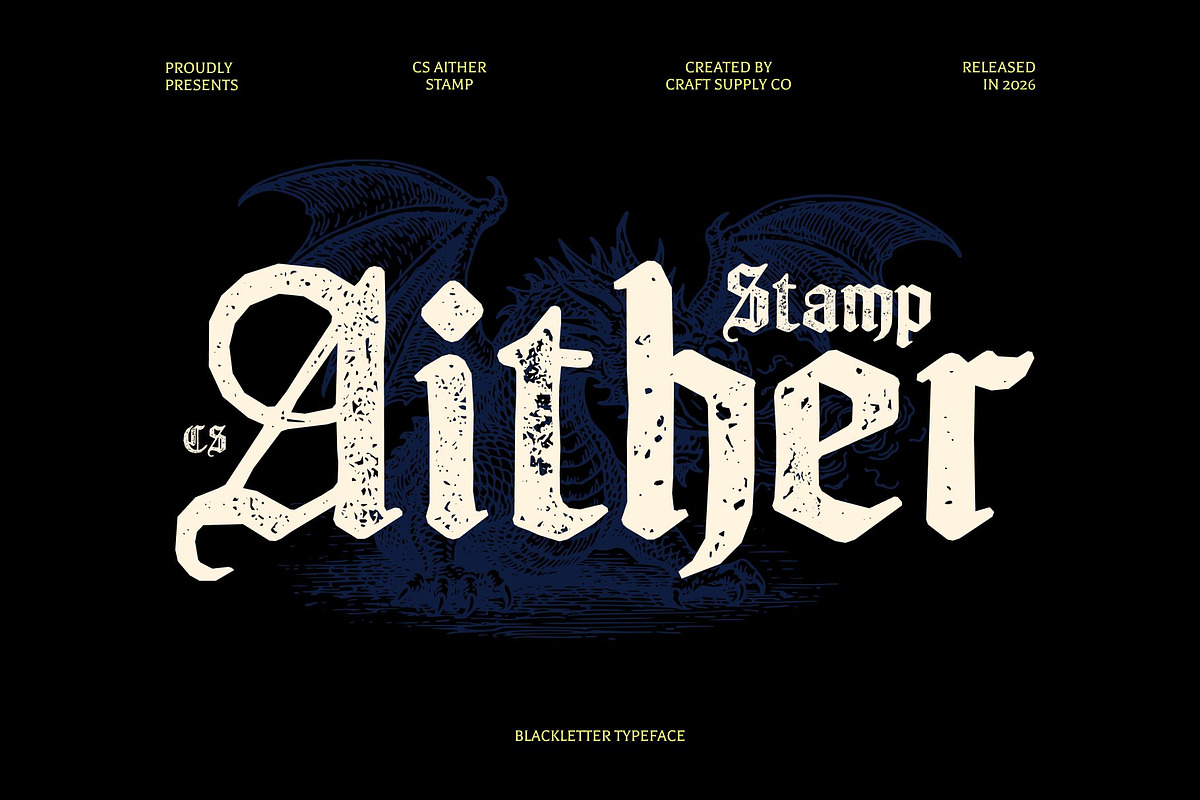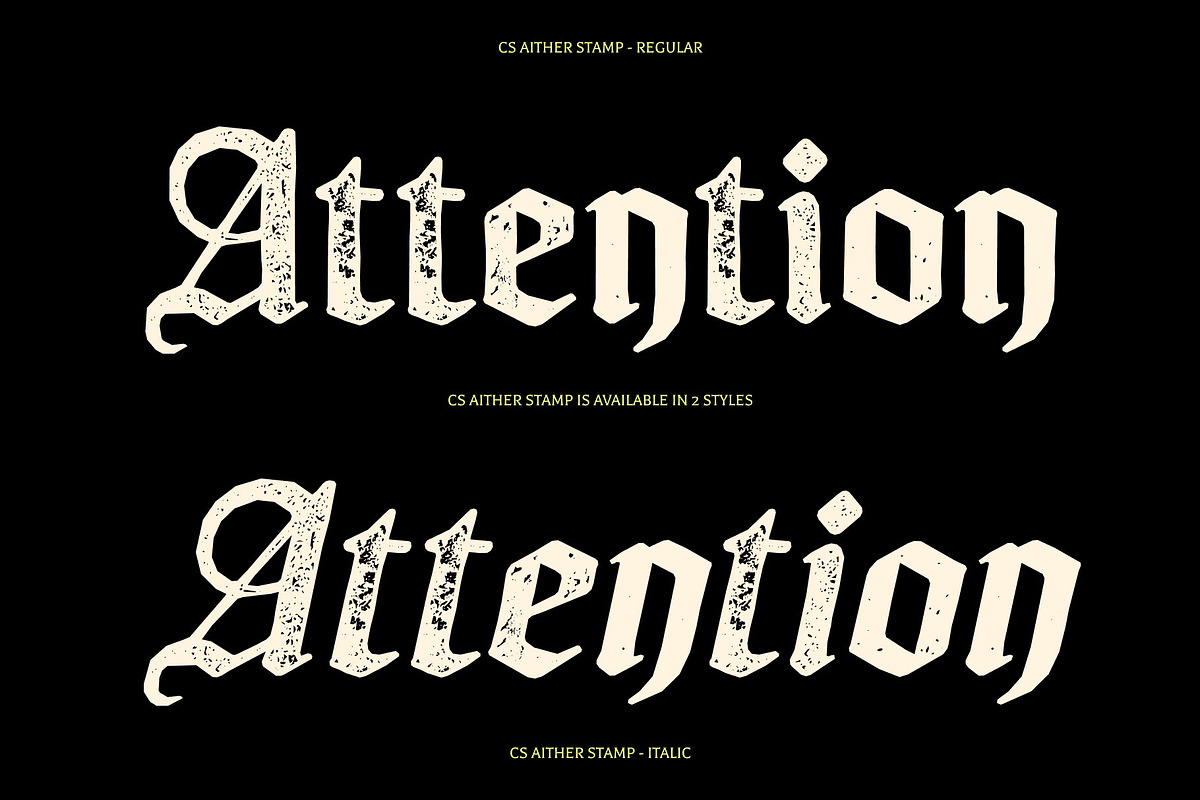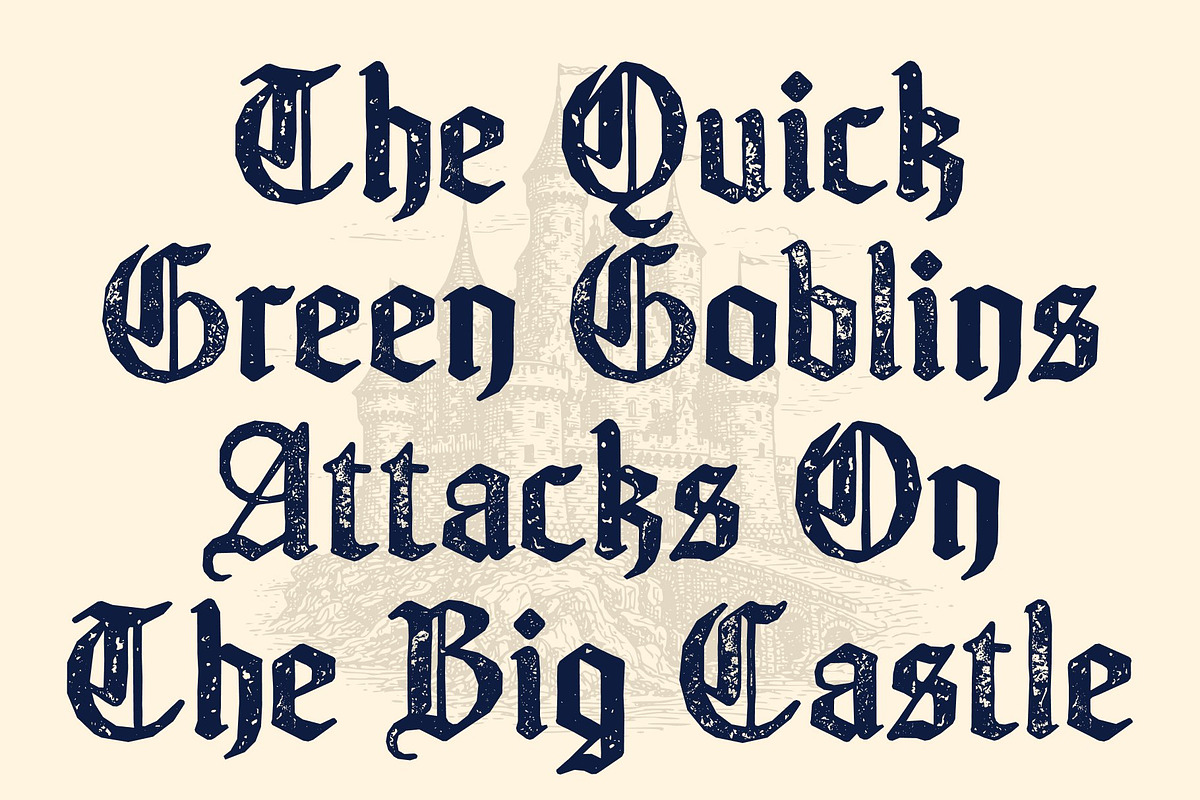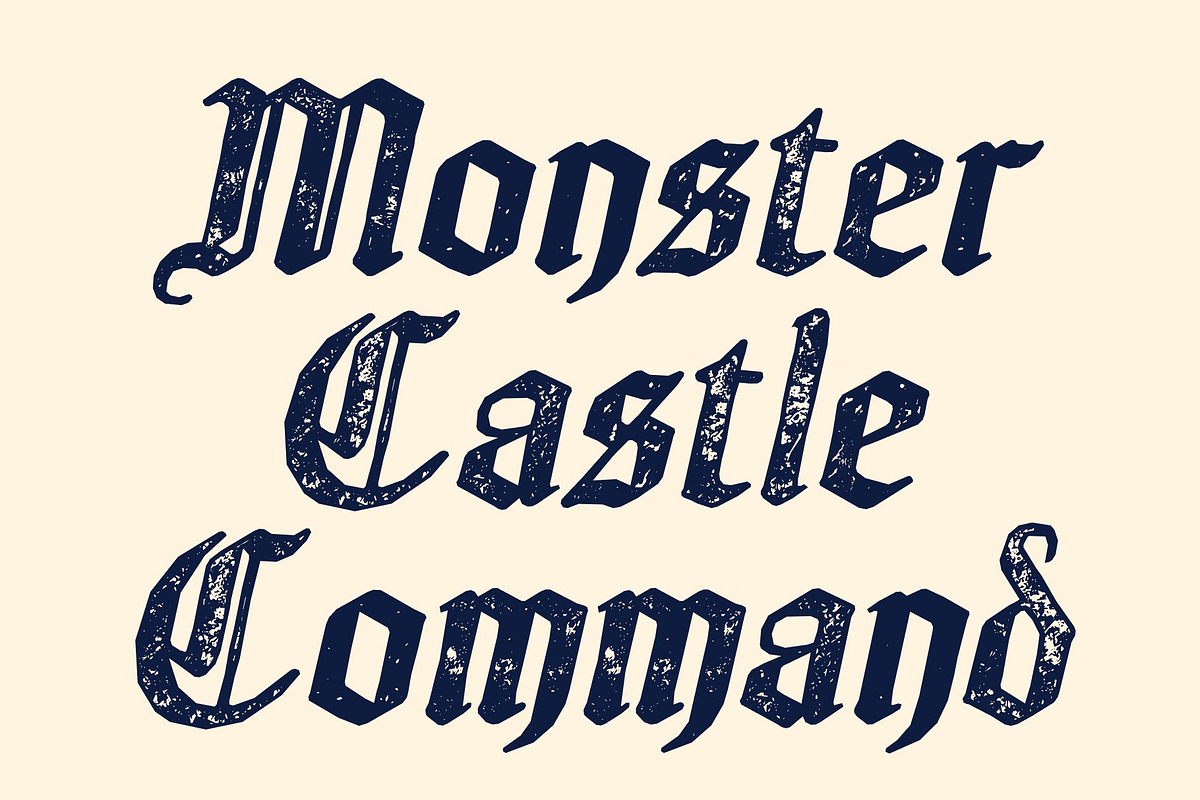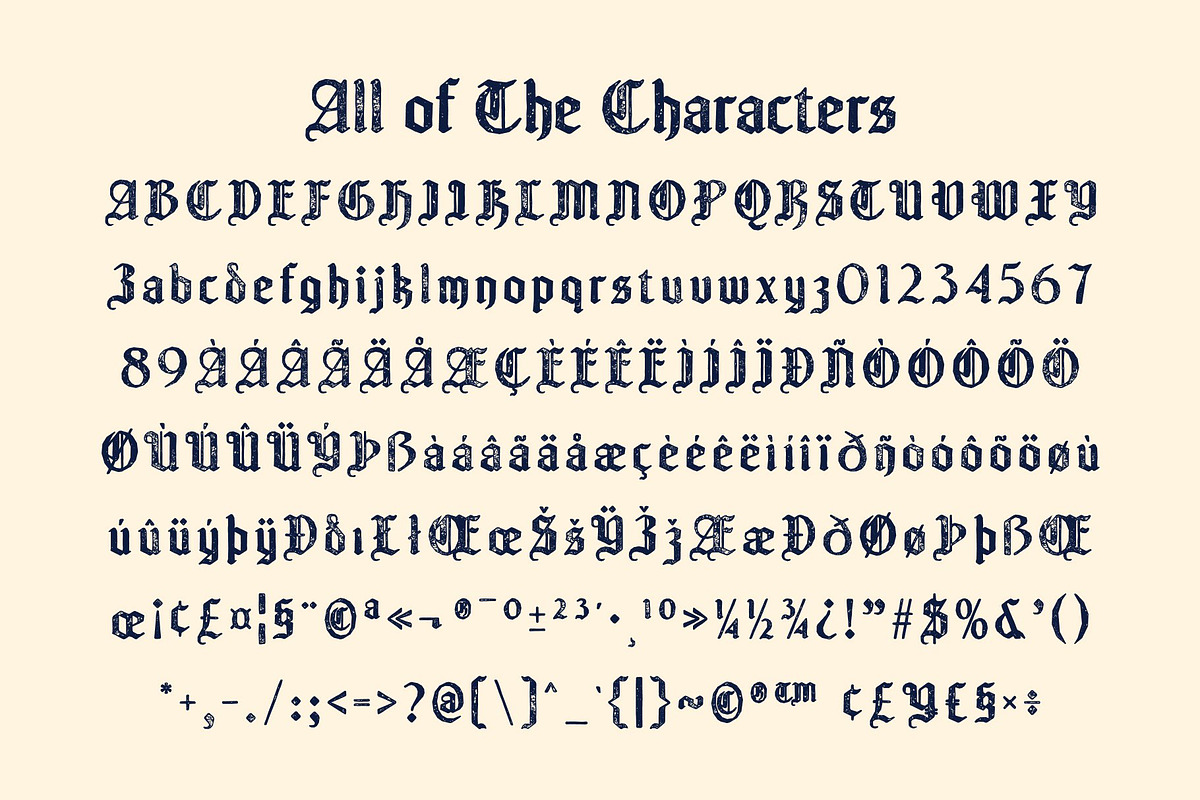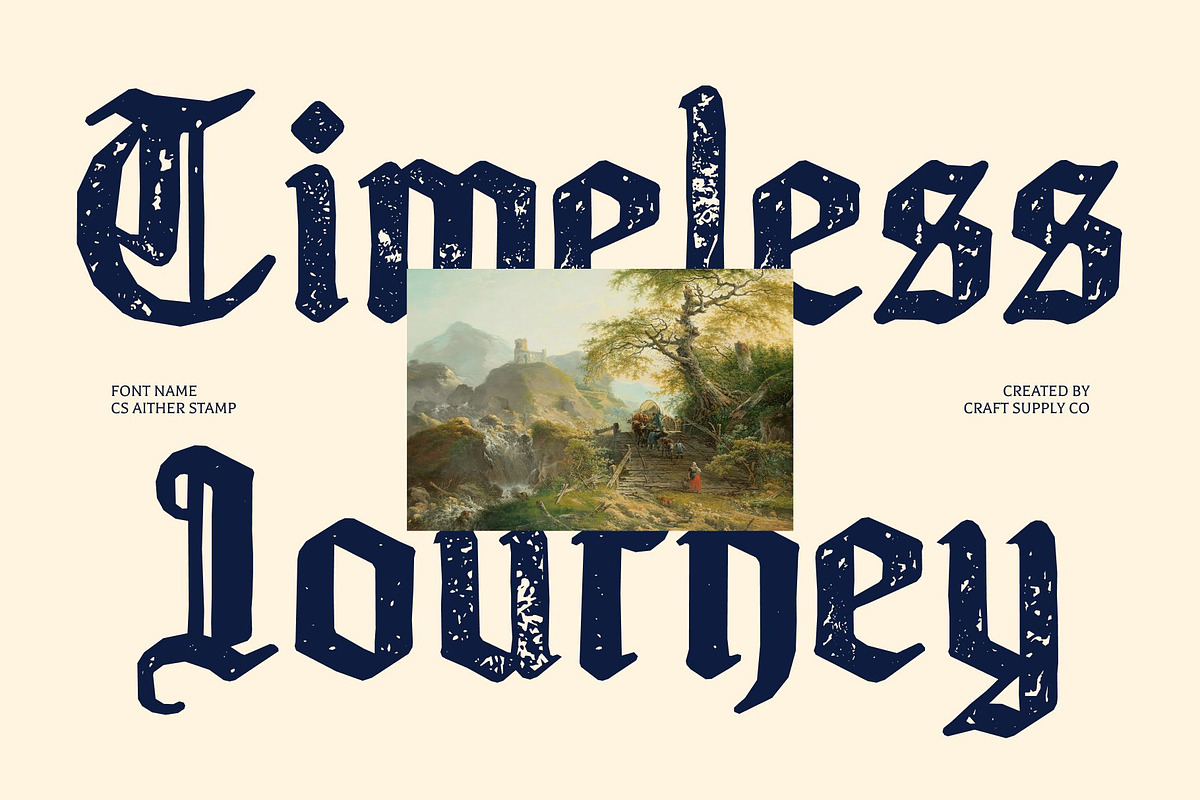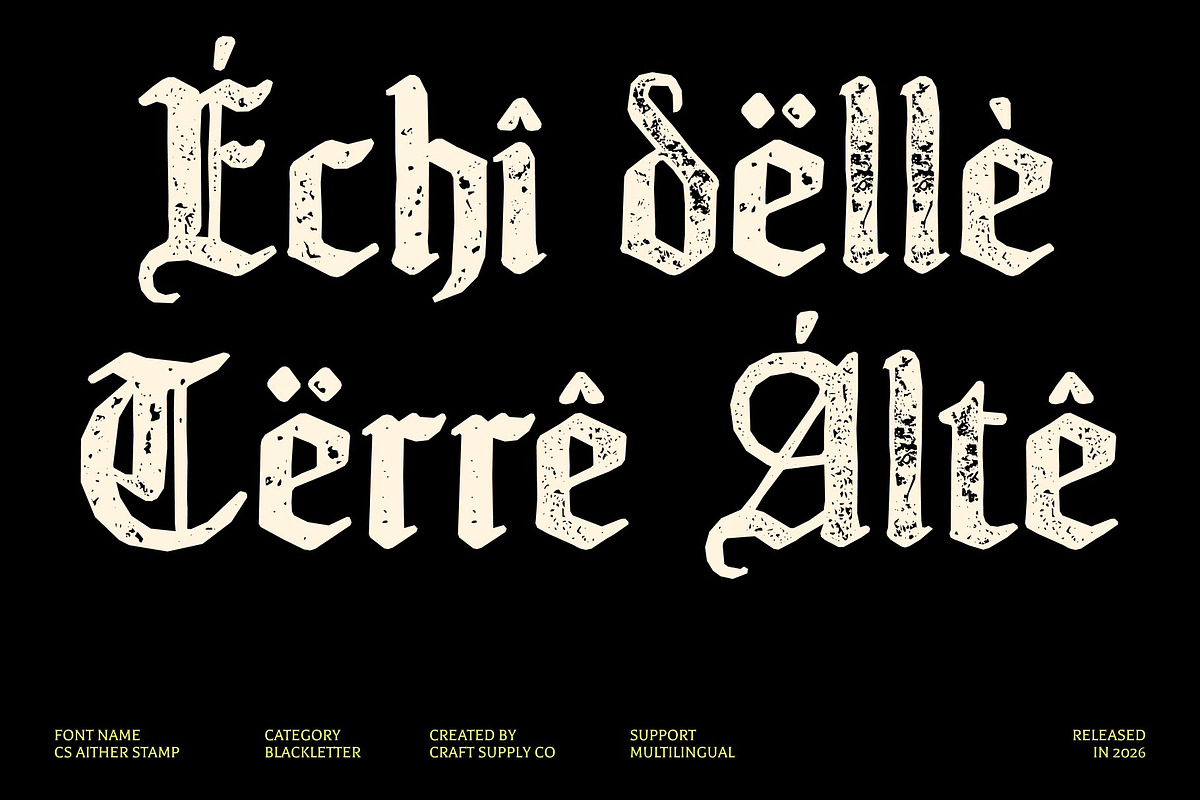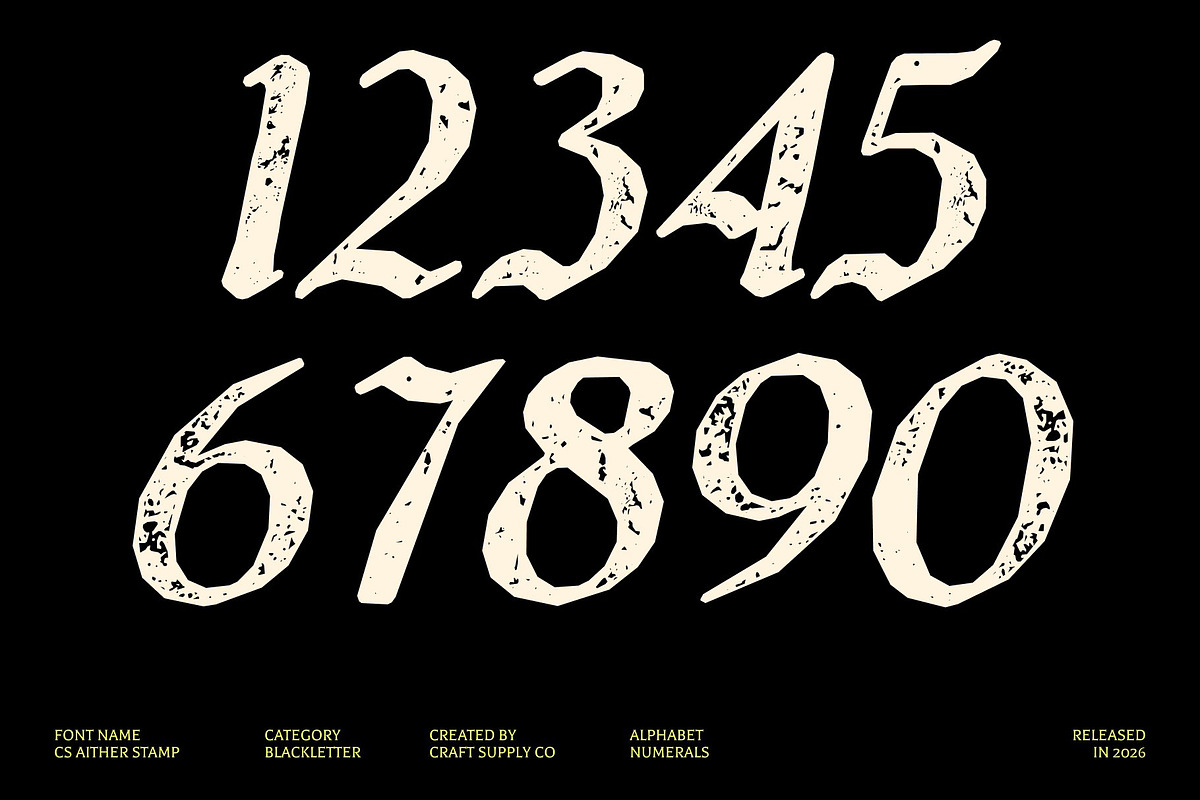
CS Aither Stamp
CS Aither Stamp – Blackletter Font: Timeless Elegance Meets Dramatic Impact Classic Blackletter Display Font with Vintage Stamp Texture This is a powerful display font crafted in the iconic Blackletter style, also known as Gothic or Old English. Defined by bold letterforms, sharp angles, and ornate detailing, this typeface delivers a dramatic and historic presence. The added stamp effect introduces a subtle distressed texture, giving the font a weathered, vintage character that feels authentic, artistic, and rich with tradition.
Ornate Details with Commanding Presence This font showcases elaborate serifs, strong vertical strokes, and sweeping forms that enhance its visual authority. The high-contrast structure and intricate shapes create a striking rhythm, while the stamped texture softens the precision with handcrafted imperfection. This balance results in a font that feels powerful yet expressive formal, bold, and unmistakably classic.
Heritage Aesthetic with Artistic Depth The stamped finish adds depth and tactile quality, evoking old manuscripts, antique printmaking, and traditional letterpress techniques. This vintage treatment enhances the historical atmosphere of the blackletter style, making the font feel timeless, mysterious, and culturally rich without appearing overly rigid or mechanical.
Perfect for Formal, Vintage, and Themed Designs This font excels in formal invitations, historical or medieval-themed events, book covers, posters, branding, and artistic projects that demand grandeur and authority. Whether used for wedding stationery, cultural exhibitions, or heritage-inspired branding, this font delivers dramatic elegance with an unmistakable old-world soul.